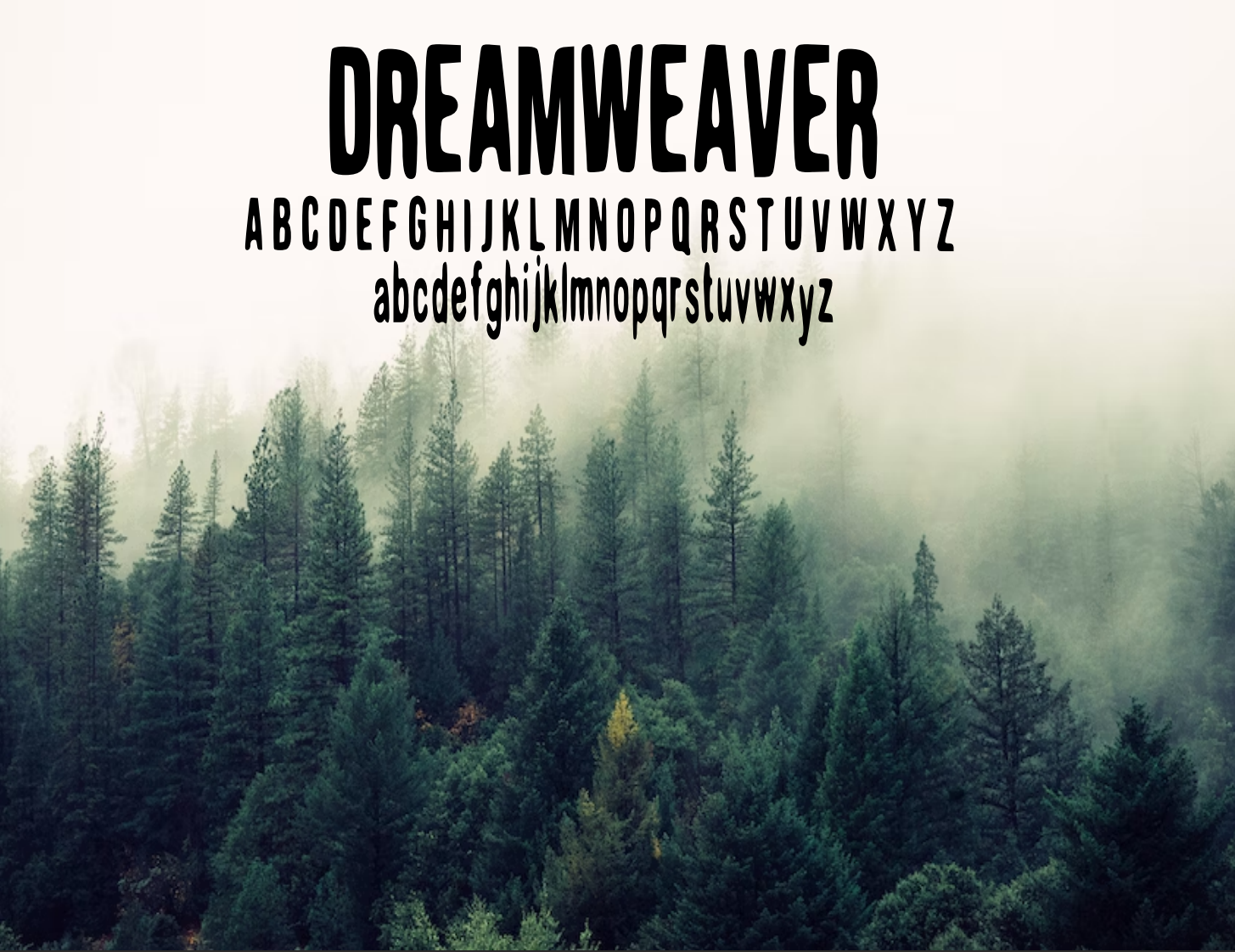
DreamWeaver Custom Font
When creating this font I wanted to give a more ominous tone. Being from New York and the smoke that has been occurring within the last week, I added a smokey background to give that weird murder mystery in the woods vibe. Let me know what you guys think!